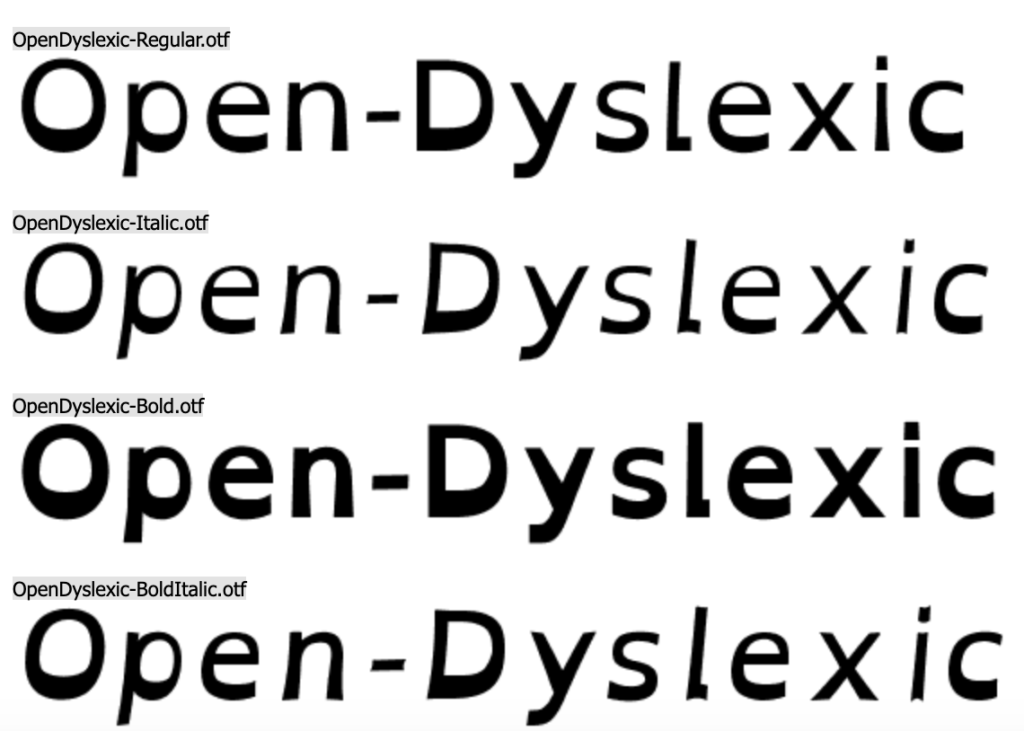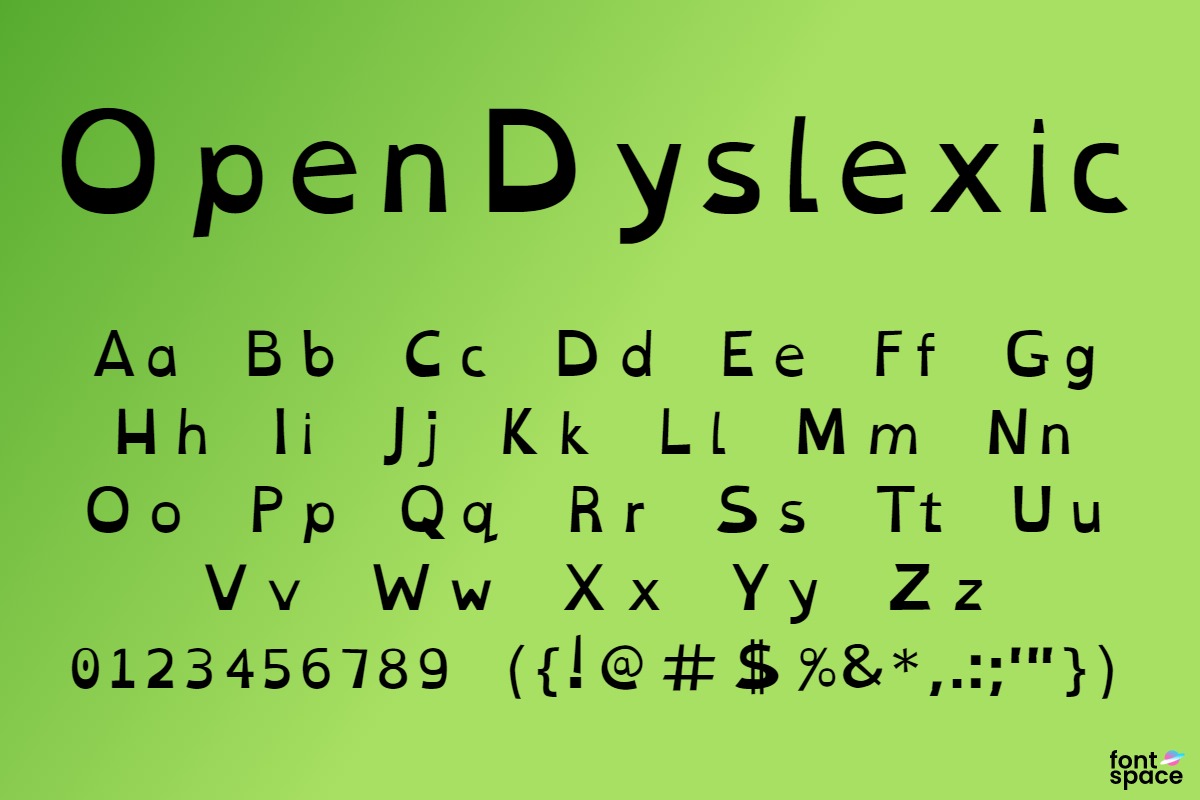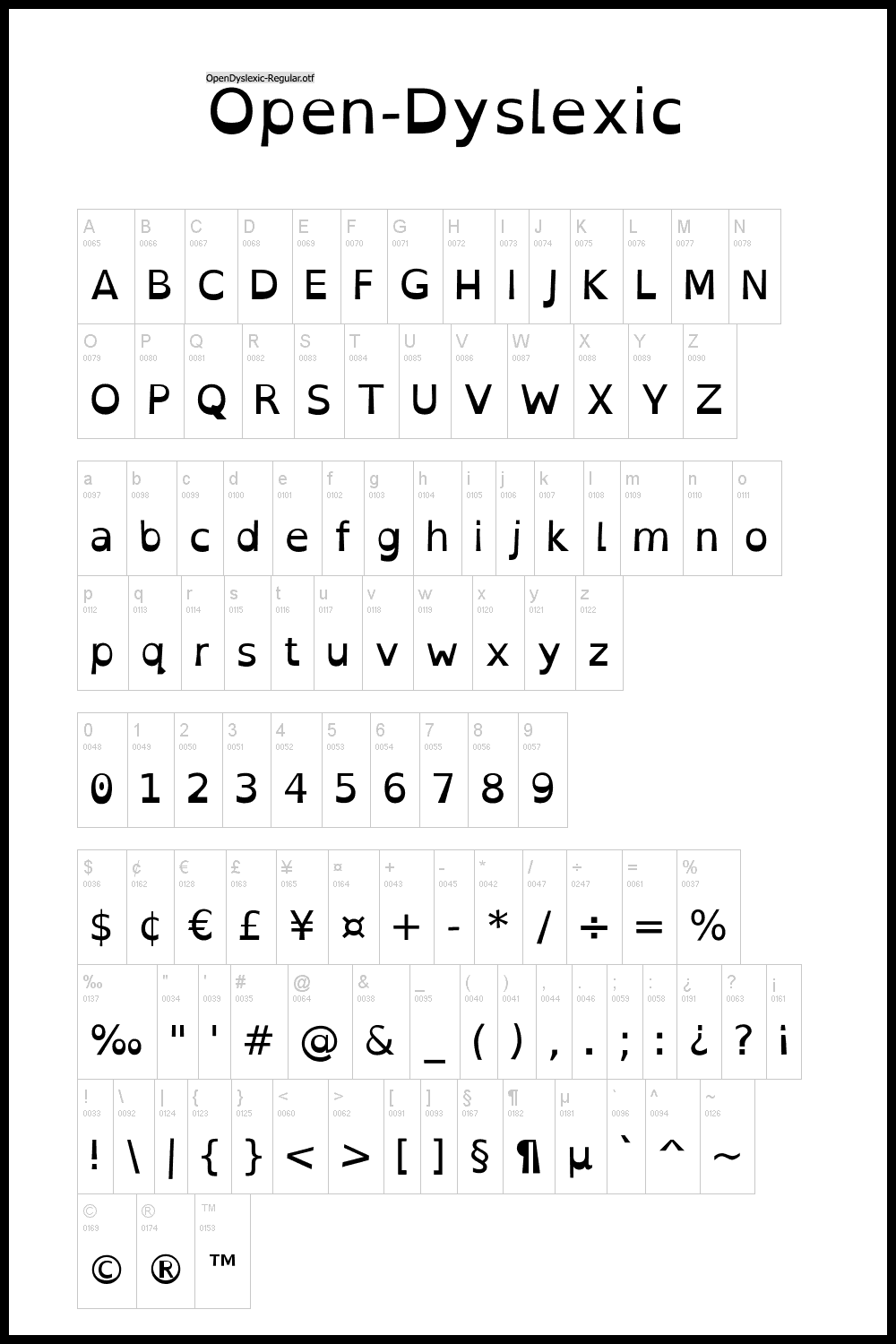
Open Dyslexic Font For Google Docs - Web how can i get opendyslexic font onto google docs? Web add opendyslexic font to google docs, sheets, etc. Open source, helps dyslexics like me. Opendyslexic is a typeface designed against some common symptoms of dyslexia.